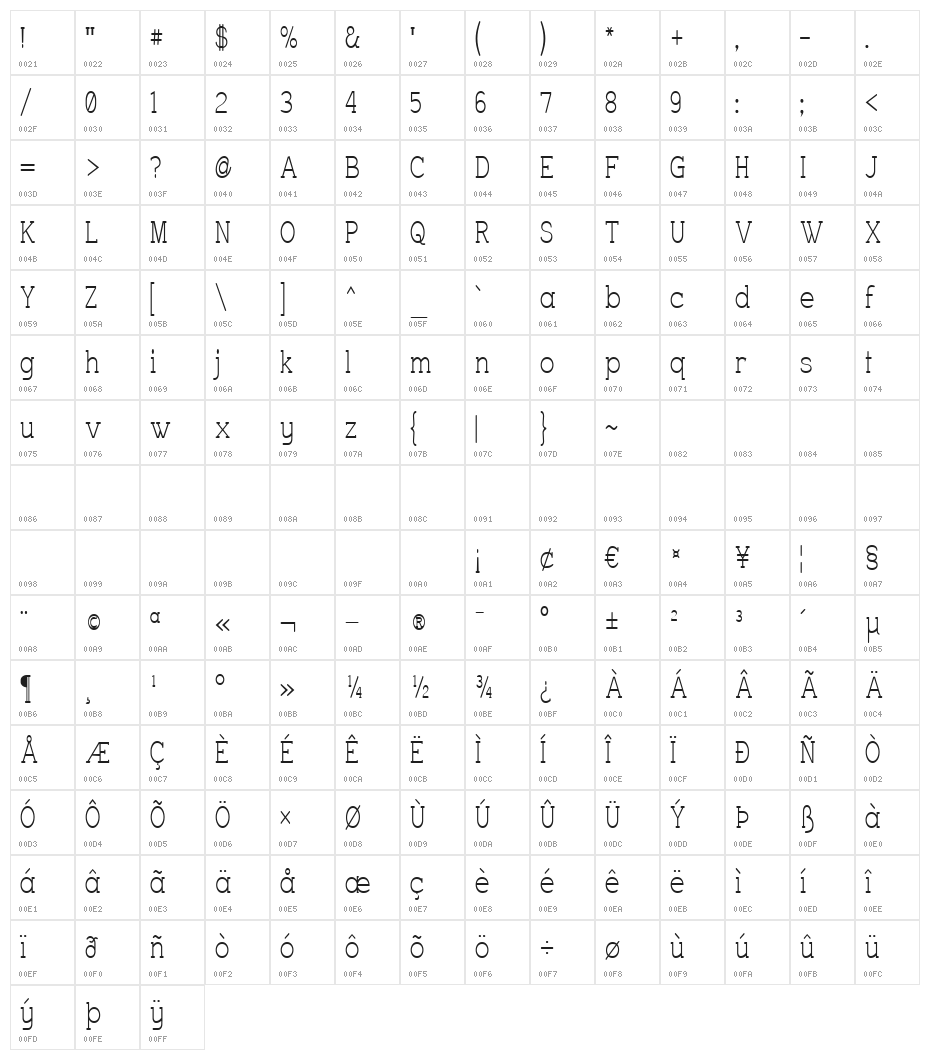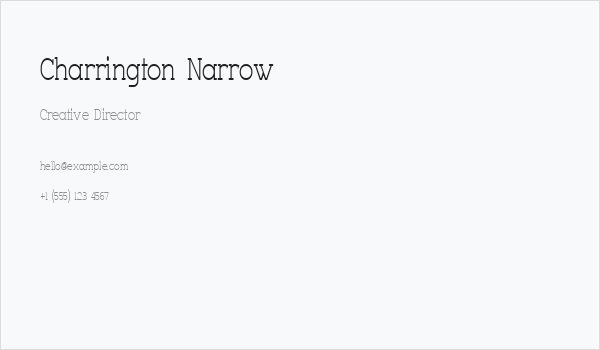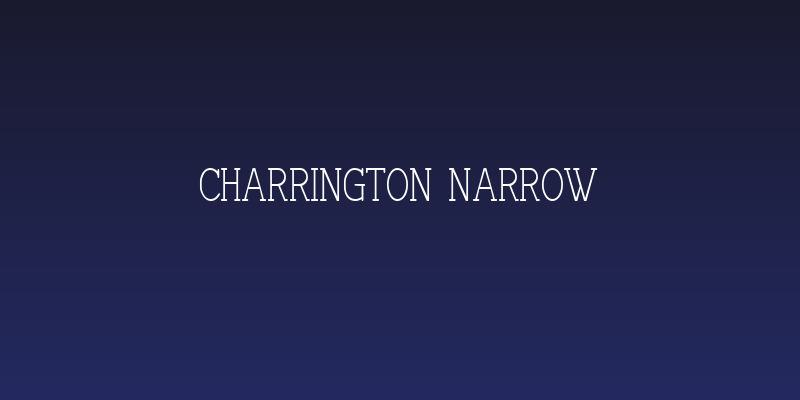
Charrington Narrow Font
Charrington Narrow Description
This font features a classic serif style with a narrow width, giving it a refined and elegant appearance. The characters are well-defined with a moderate contrast between thick and thin strokes, which enhances readability while maintaining a sophisticated look. The uppercase letters are tall and commanding, while the lowercase letters are more subdued, offering a balanced aesthetic. The numerals are consistent with the overall style, providing clarity and uniformity. Special characters are distinct and integrate seamlessly with the rest of the font, making it versatile for various applications.